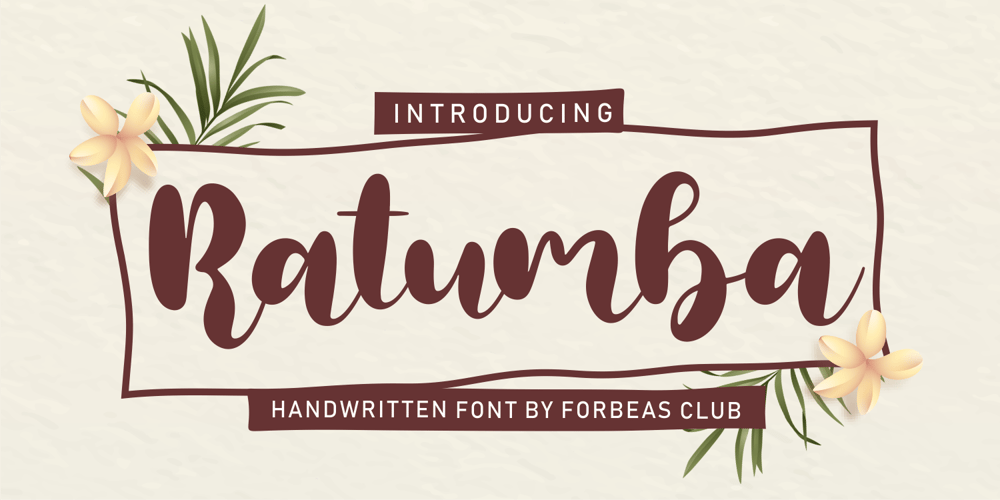
Ratumba
Ratumba font
Ratumba Font Family was designed by ANGGI HERMAWAN and published by Forberas Club. Ratumba contains 1 styles and family package options. Ratumba font create with carefully. Can be use for wedding party, invitation, cute, tag, memorable moment, love story and many more with special moment.